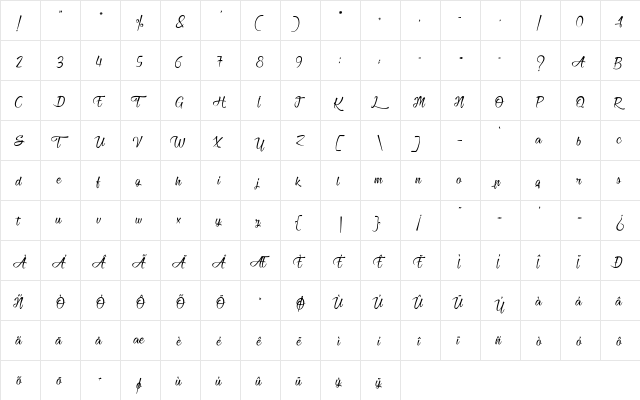
Heartbeat in Christmas Regular
Design Context for Heartbeat in Christmas Typeface
Heartbeat in Christmas is a composed and adaptable typeface that performs quietly and consistently across a wide range of design contexts.
Pro Tip: Use Heartbeat in Christmas in both headline and body roles to test its range before committing to a single application.